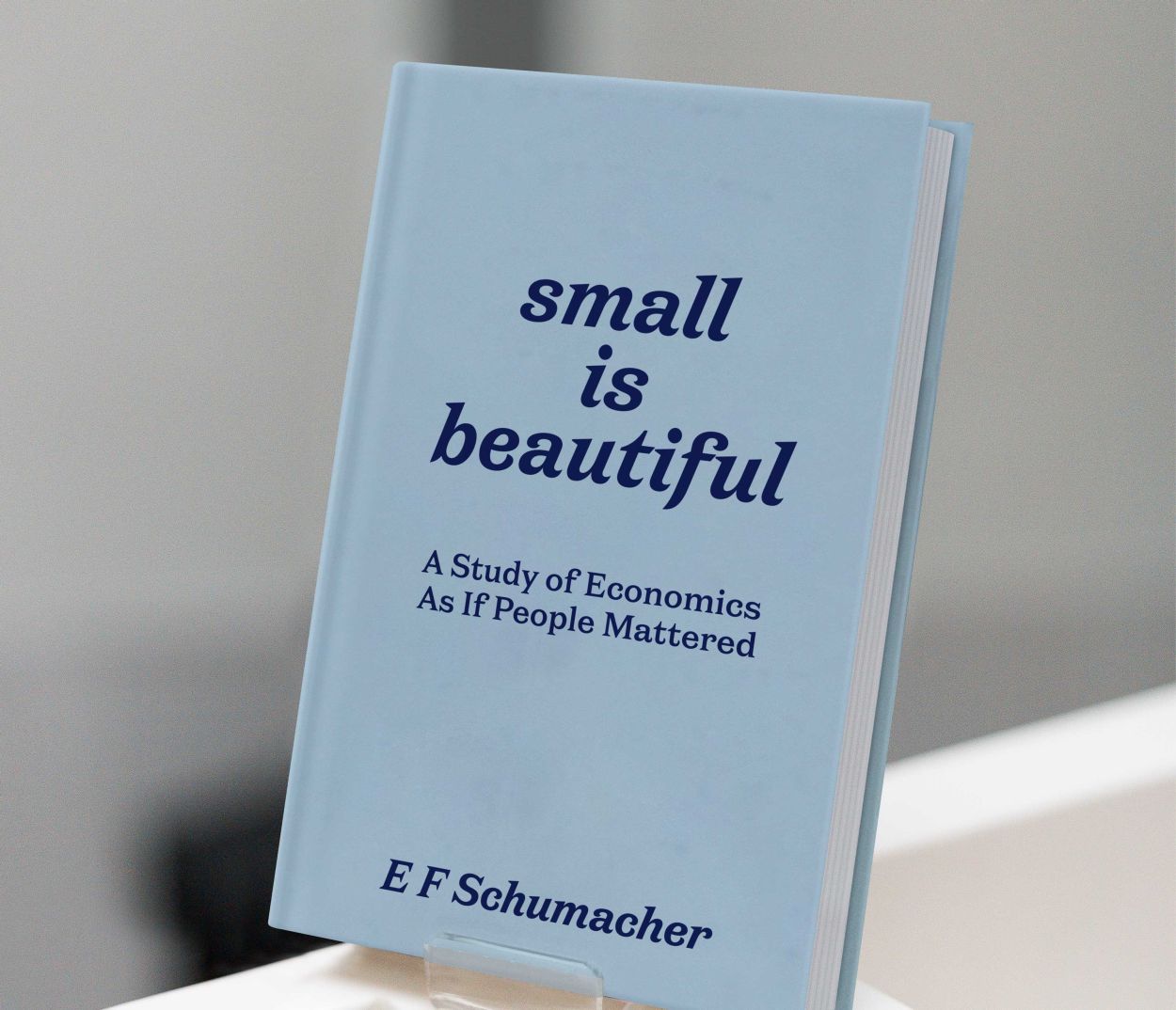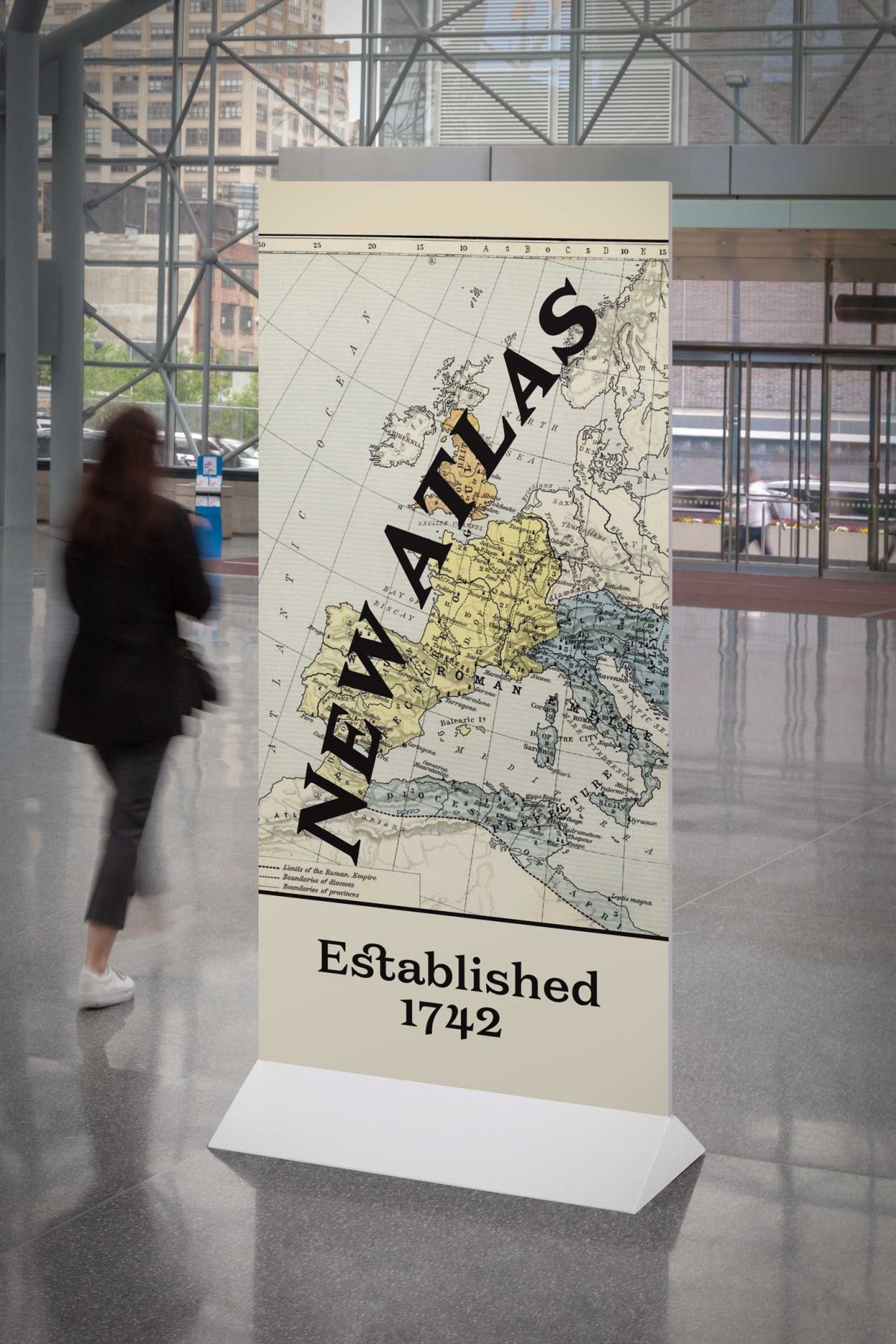
New Atlas
New Atlas is our contemporary revival of a nearly forgotten Stephenson Blake gem from the early 20th century—originally drawn for small, refined print and praised for its delicacy. We rebuilt it from fragile specimen sources, keeping its intimate, graceful texture while making it reliable for today’s designers.
The family now comes in a full weight range, with small caps, a cursiv italic, and discretionary ligatures. A typeface that bridges the ornate excesses of Victorian design and the modern boldness of the early 20th century. It brings the elegance of British metal type into a 21st-century toolkit.